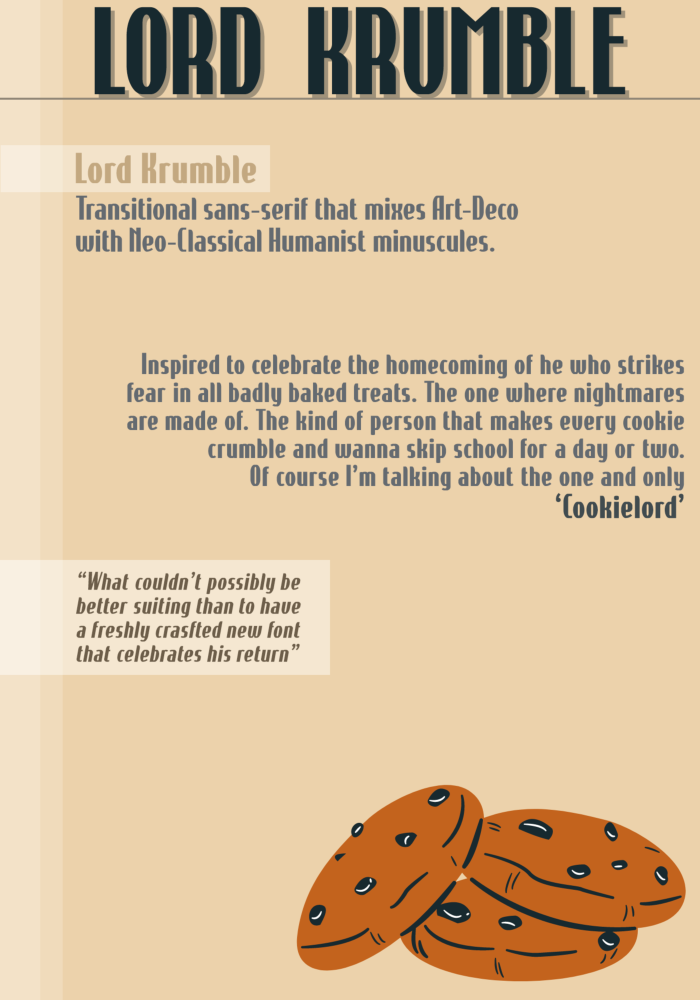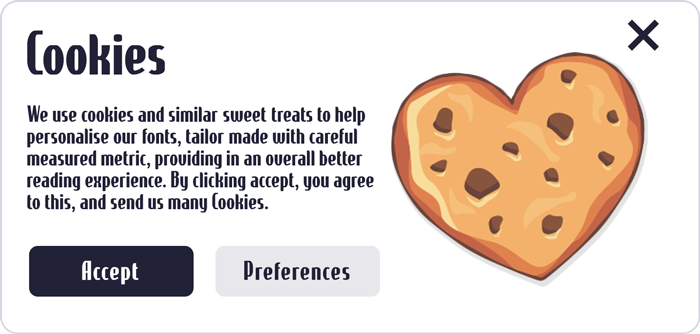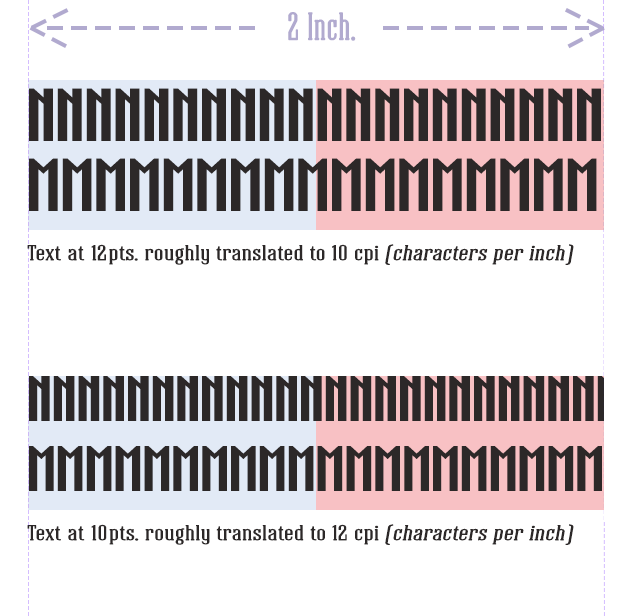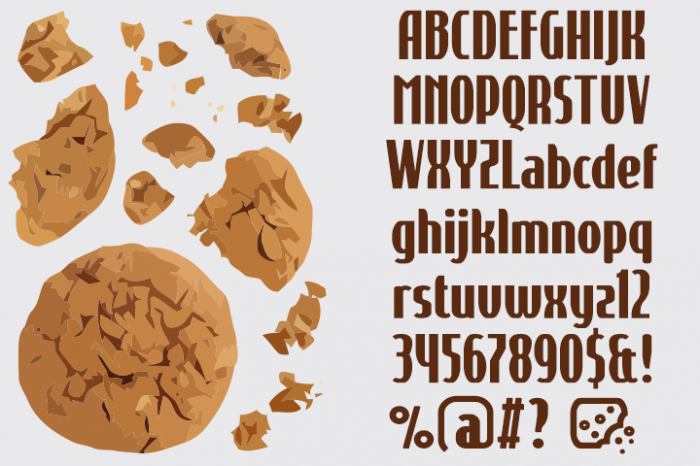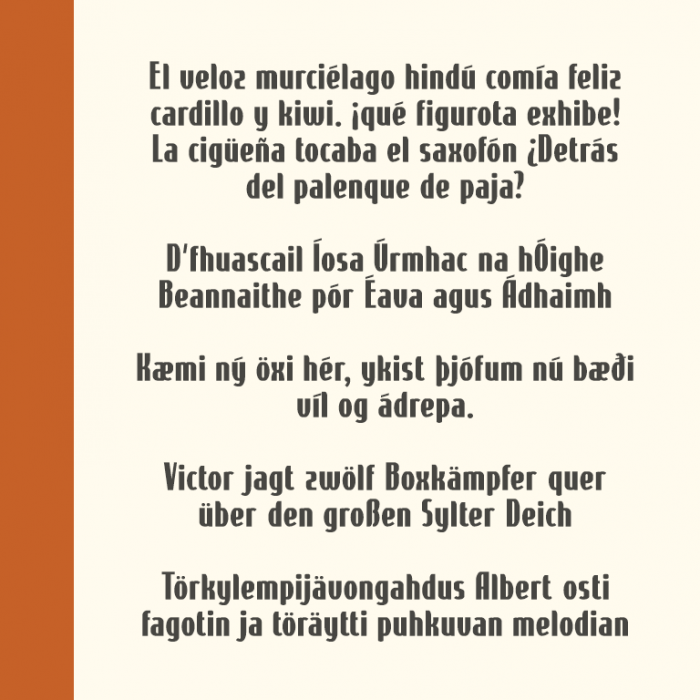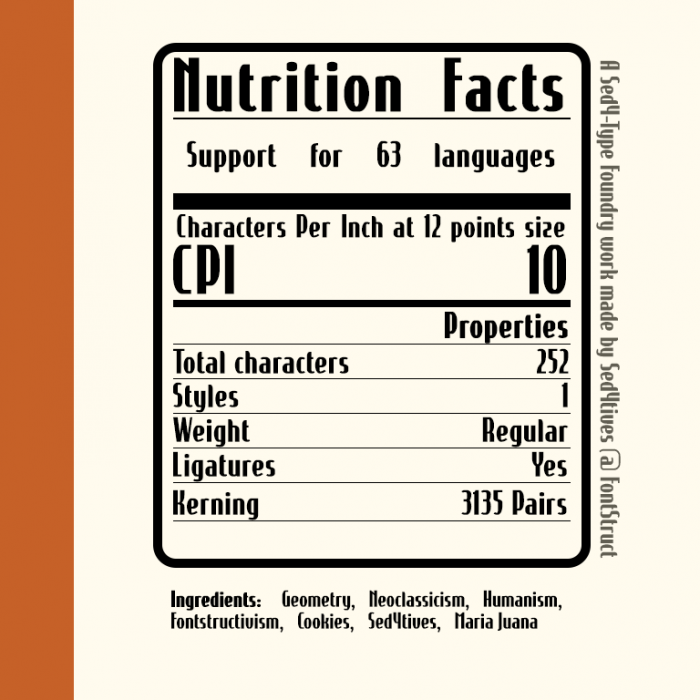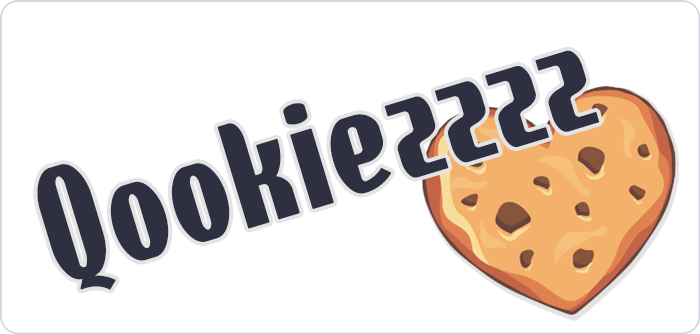
• LORD KRUMBLE — A transitional sans that mixed Art-Deco with neo-classical humanist minuscules
Inspired to celebrate the homecoming of him who strikes fear in all badly baked treats, the one which nightmares are made of, that kind of person that makes every cookie crumble and wanna skip school for a day or two. Of course I'm talking about the one and only "Cookielord".
— "What couldn't be better suiting than to have a freshly crafted and new font that is celebrating his return."
Him recently dropping a new FontStruction somewhat came as a pretty unexpected but nice surprise. It just so happened to be that I was already looking for new ideas that could lead to the next project. In fact, until recently I was actually still struggling with this, and hadn't really been able to provide a catchy and motivating design theme to bring to the table that would once again help me on my way with starting a new FontStruct project. So I took this occasion to see if I was able to find a little inspiration in his Vermin font . Not particularly aimed at doing a derivative work, nor anything closely resembling his cool font. Instead rather trying to draw some inspiration from that peculiar and playful but friendly characteristic, that to me personally distinguishes his Vermin font the most anyway.
And so I appoligize for the fact that this doens't truly relates or do justice stylistically in any way to the aesthetic present in Cookielord's original Vermin font. That being said, this is what became the end product of that.
But, it does have one striking resemblance that pays a homage to him, and that is the included cookie. Sorry I took a bite out of it my friend, hope you can still appreciate it.
— Just to let you know that regardless wether you decide to stay or not, your recent return isn't going to be for nothing!!
No 'Brick Size' filters were used, which of course presented me with a lot of challenges that limited the amount of complexity I was able to put in, something that wouldn't been the case with (2:2) 'Brick Size' filter settings. The other noteworthy aspect to this particular fontstruct is its grid size, which is tiny. Never before have I made a Fontstruction that required kerning values to fluctuate only as little as 0,01. This also made it impossible to implement optical corrections on the vertical axis in the form of overshoots, but luckily this didn't became a very clear issue in the end.
I'm not sure if I can complete the additional Latin accents for all characters due to the limited grid space available surrounding some of glyphs. I might try doing those later.
The Art-Deco flavouring, that uppercase “Q” of yours, the subtle touches on the length of horizontal bars on your uppercase “E”, the lowercase “c” and “e”... wow!
Wow, I pulled off the Additional Latin accented set, didn't expected it to be fully possible at 1:1 Brick Size filters, but with some small tweaks and rearranging of bricks to achieve the same glyph in a different configuration it somehow worked out.
That's a wonderful idea, IMHO! This "egyptian" way looks fantastic, very pretty (my only "but" are the rounded shapes on Z and z, you know my point about that). Go on, compa!
I don't know what it has with Egypt, but the small serifs suit it really well, 10/10.
I also would prefer sharp corners on Z like Elmo, at least at bottom side, or even different diagonal transition (maybe like on 2), so it does not look just like mirrored S.